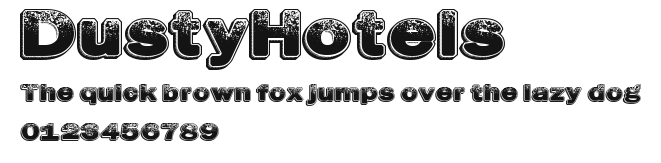
• Font Name: DustyHotels
• Full Font Name: DustyHotels
• Version: Version 1.00 August 18, 2015, initial release
• Designer: Max Infeld Xerographer Fonts
• Manufacturer: Xerographer Fonts
• Description: The Hotels are Dusty
About DustyHotels.ttf
DustyHotels.ttf is a modern, elegant sans-serif font designed for ultimate readability and visual harmony. Perfect for branding, headlines, web design, and print materials.